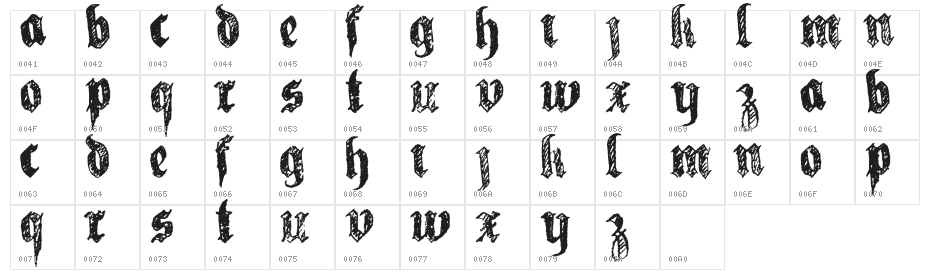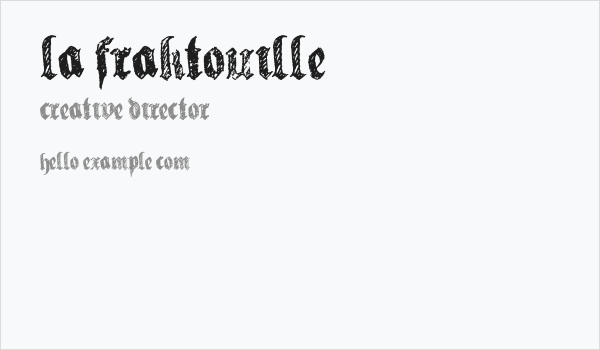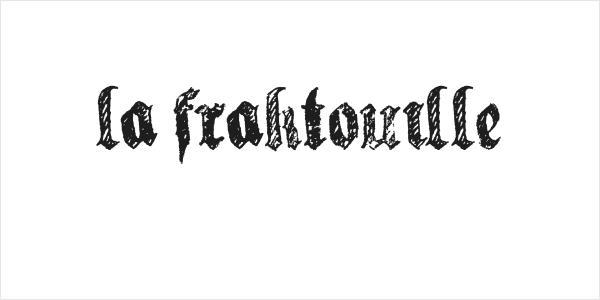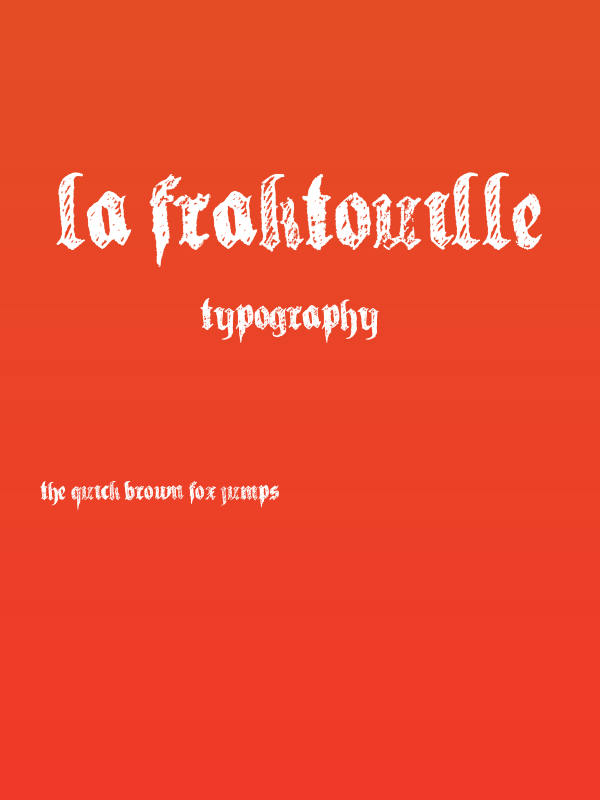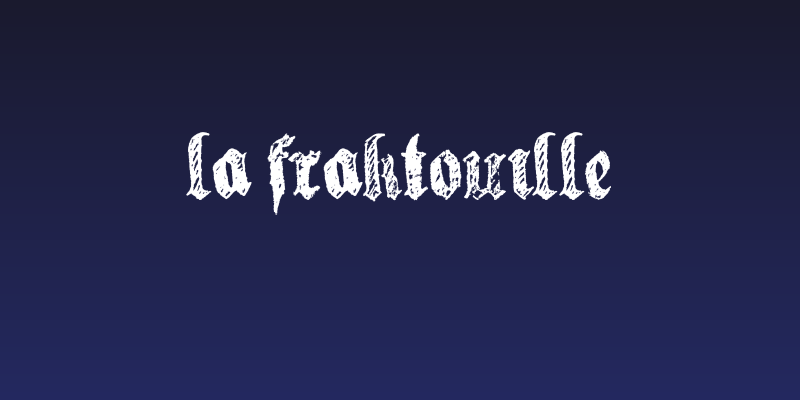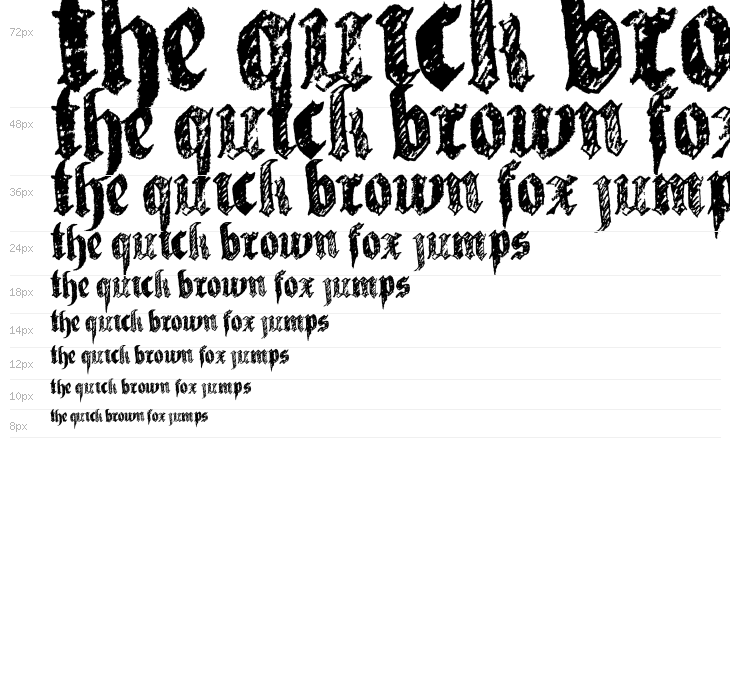
This font exhibits a classic blackletter style, characterized by its intricate and ornate design. The letters are bold and angular, with sharp edges and a distinct medieval aesthetic. Each character is crafted with a high level of detail, featuring decorative elements that enhance its historical appearance. The font's strokes are thick and consistent, providing a strong visual impact. It is reminiscent of traditional Gothic script, often seen in historical documents and manuscripts. The overall design conveys a sense of tradition and formality, making it suitable for projects that require a touch of elegance and sophistication.
| Proposed Projects | Ideal for historical documents, invitations, certificates, and branding that requires a traditional or Gothic touch. |